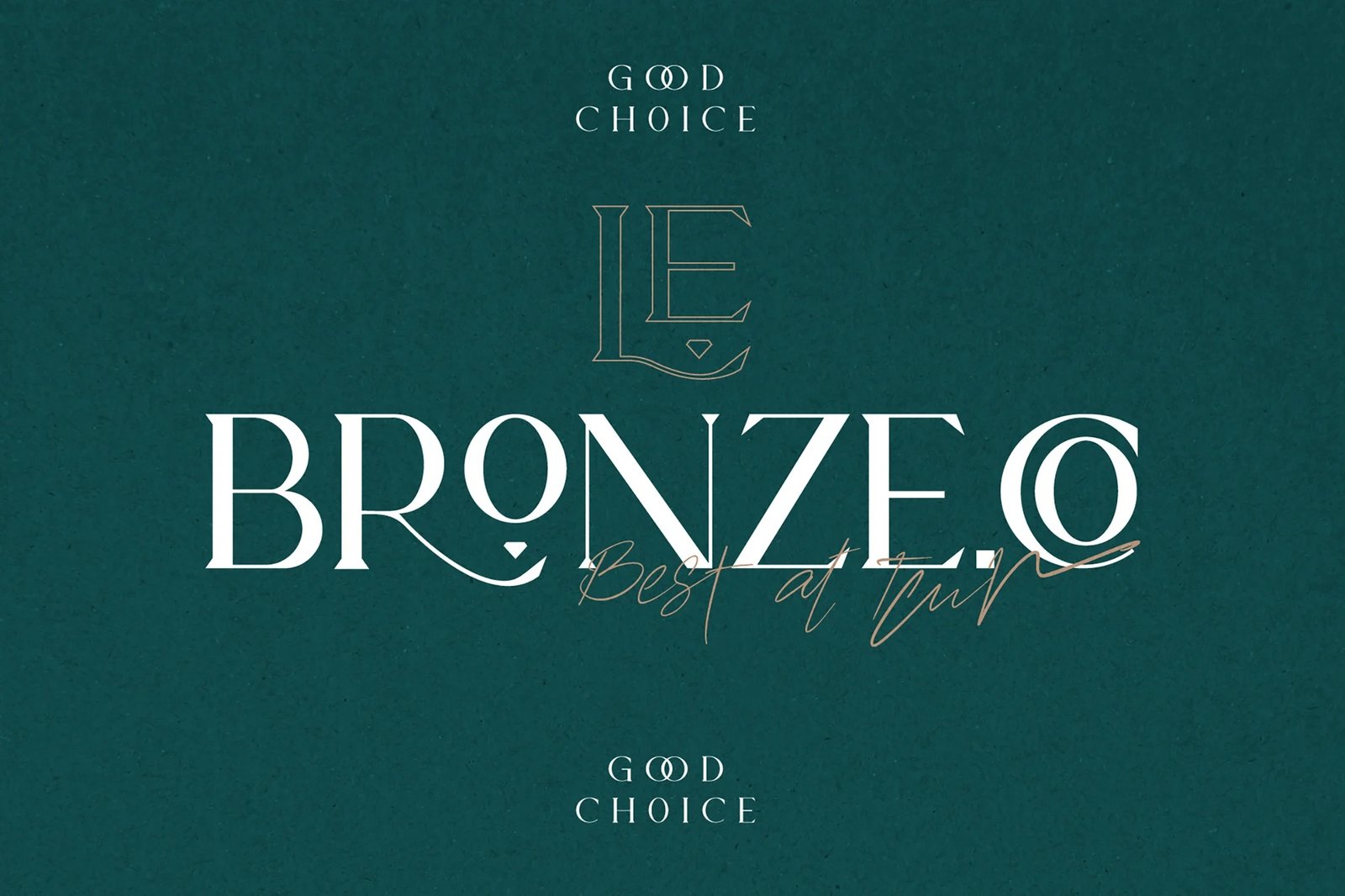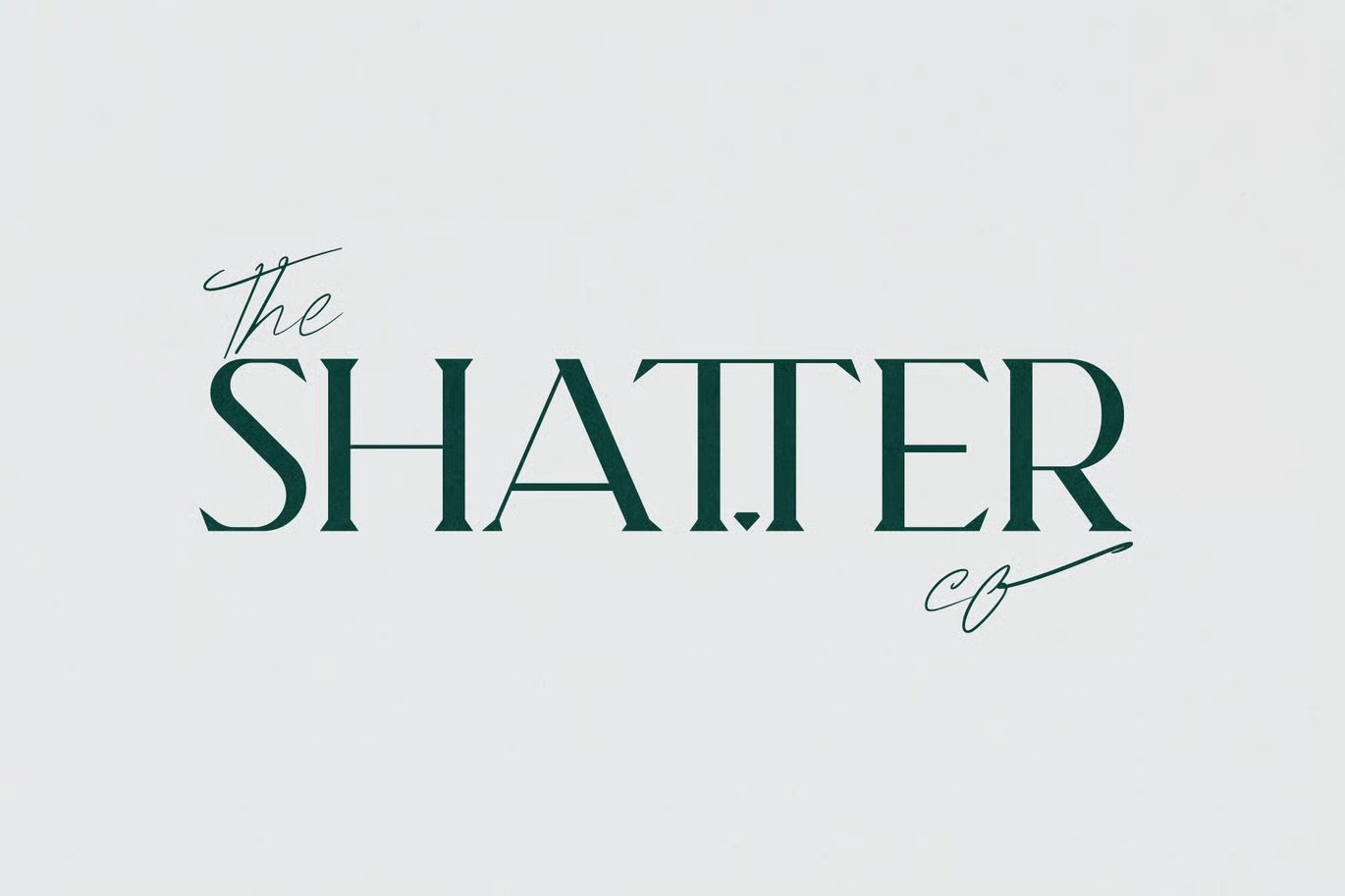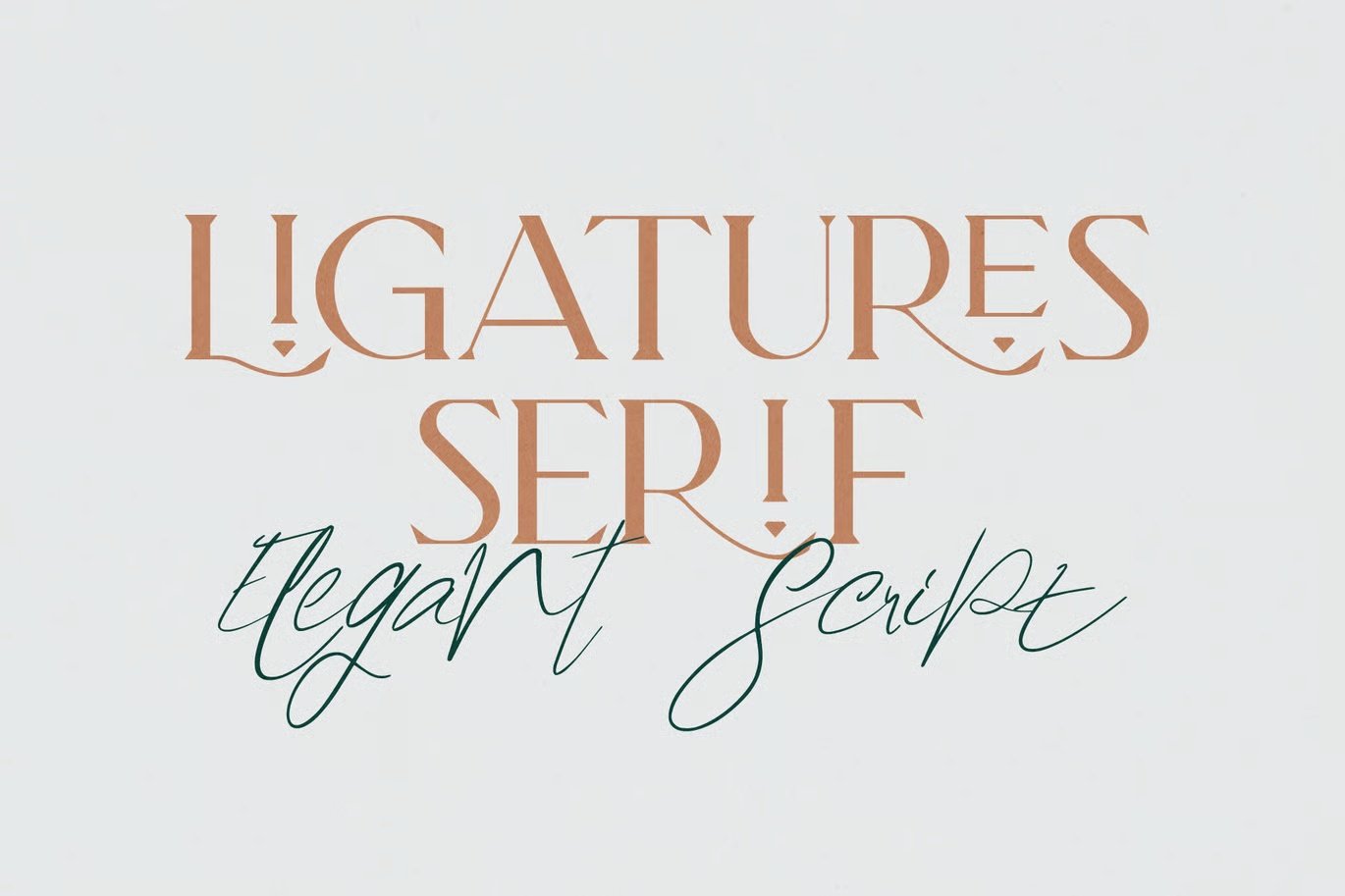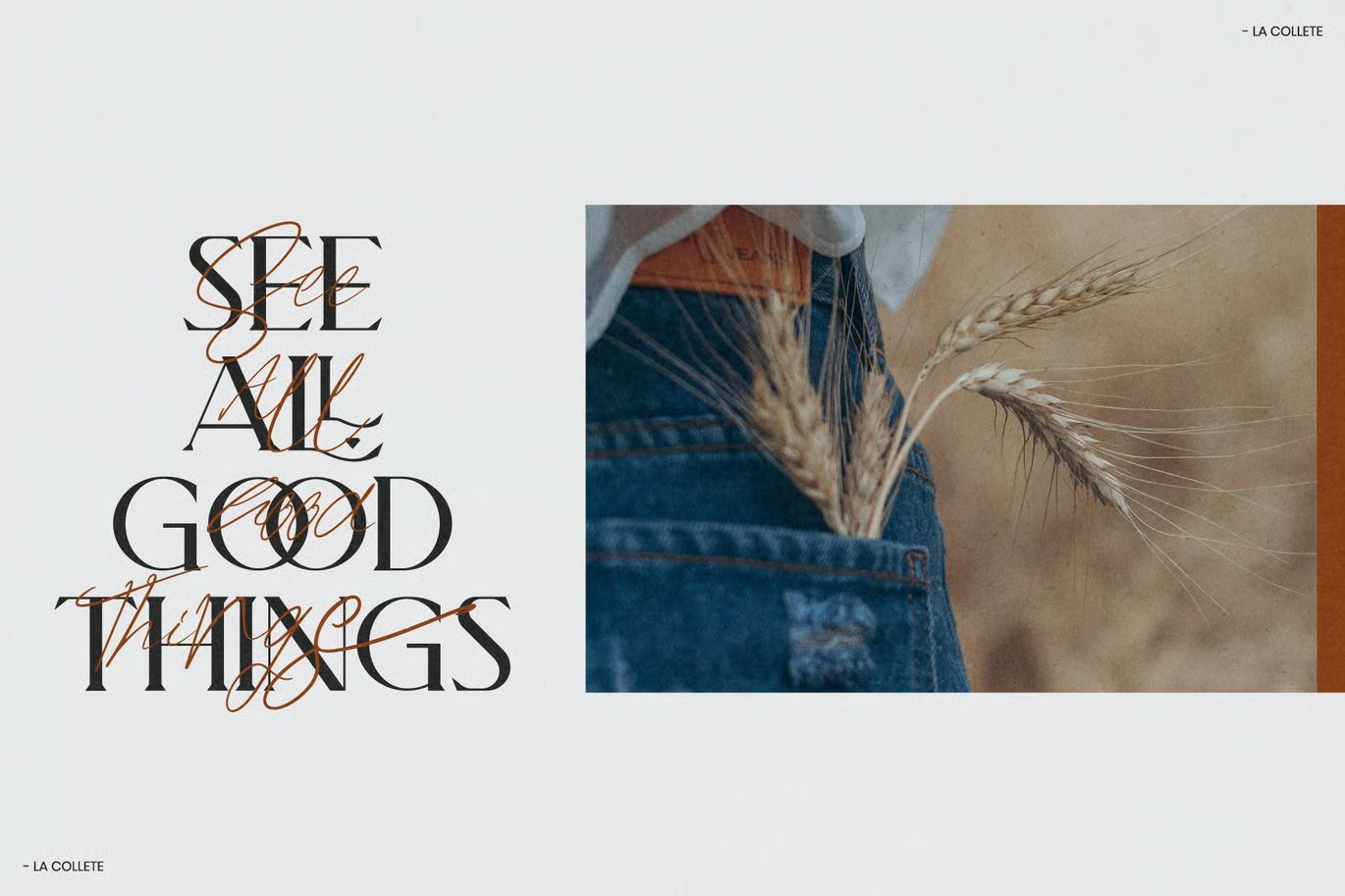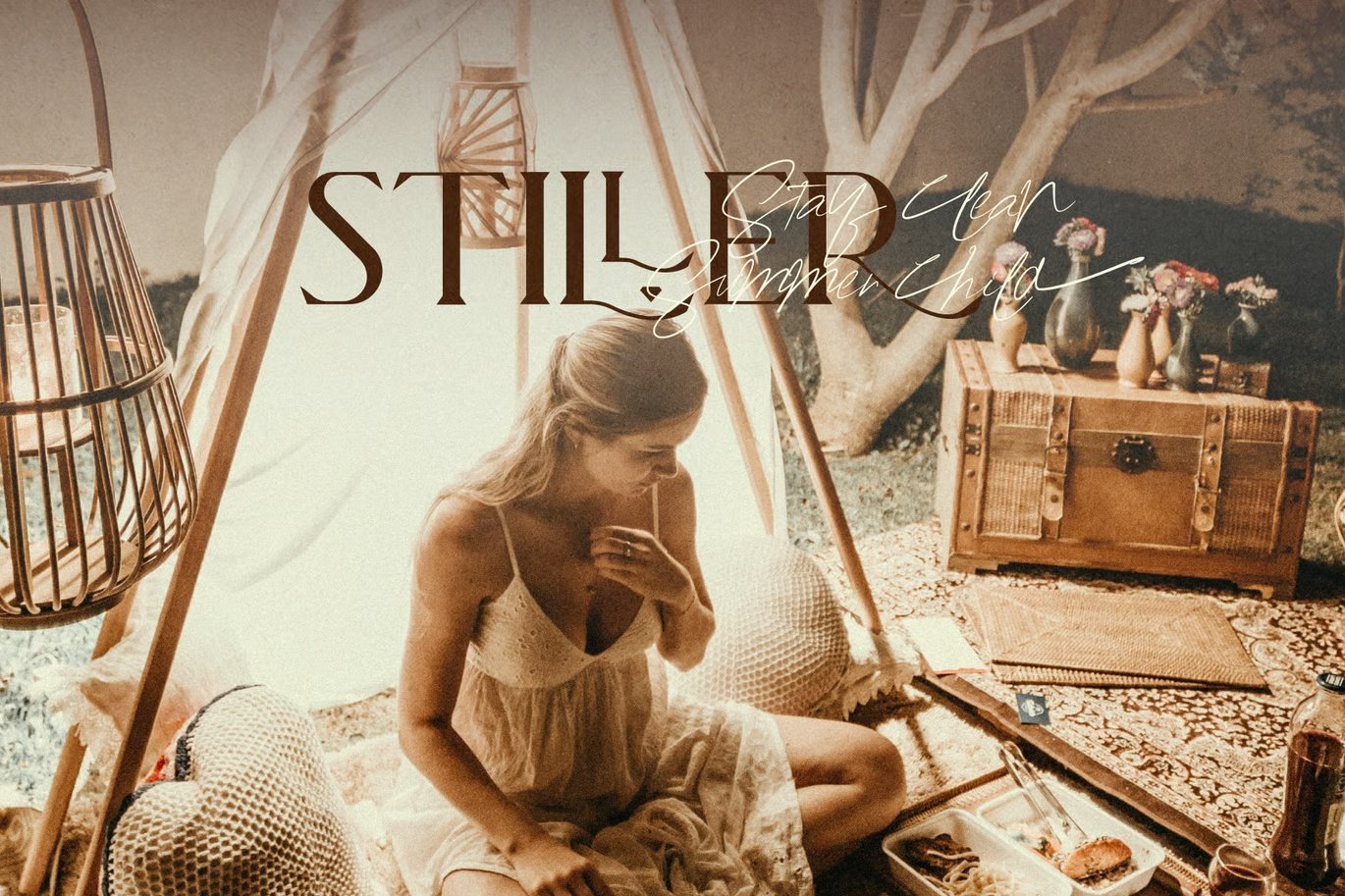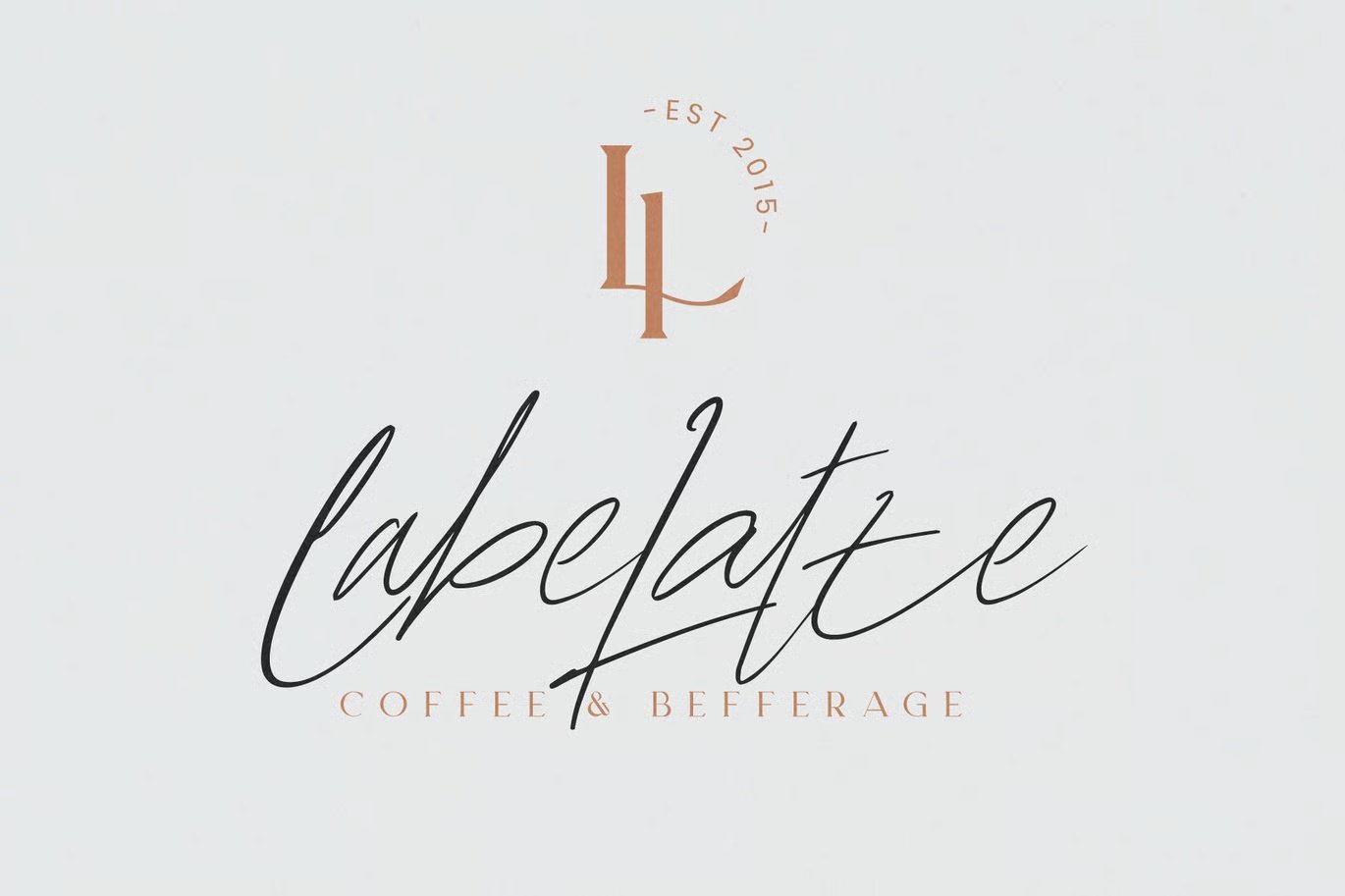
La Rollette is a stylish and delicate duo font ( handwritten and serif). It has a clean, thin and smooth vibe and it will be a hit for any design that you want to add it to. It is suitable for any branding, product packaging, invitation, quote, t-shirt, label, poster, logo that you wish to develop.